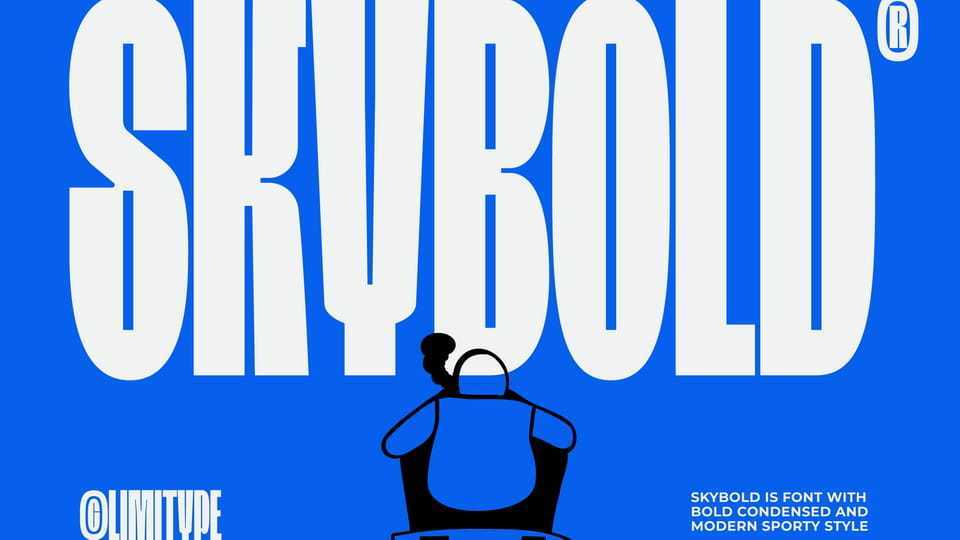
Download Skybold font, designed for display and design needs that require bold and slim text, such as headlines, posters, logotypes, magazines, and similar media.